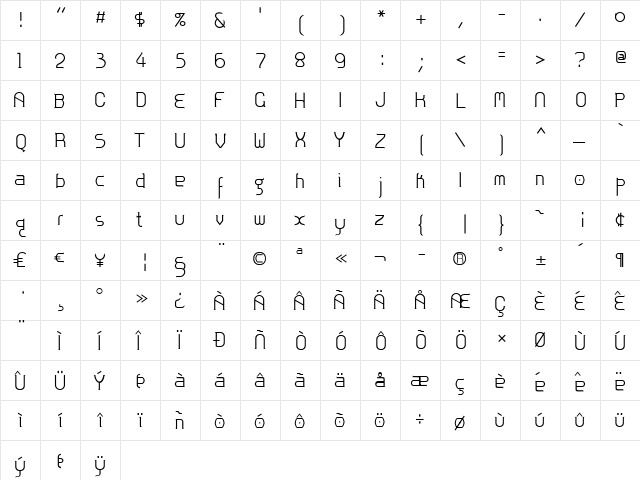
Zoloft Roman
Design Context for Zoloft Typeface
Zoloft offers clean, dependable letterforms without strong stylistic allegiance, making it a practical choice for designers who need flexibility.